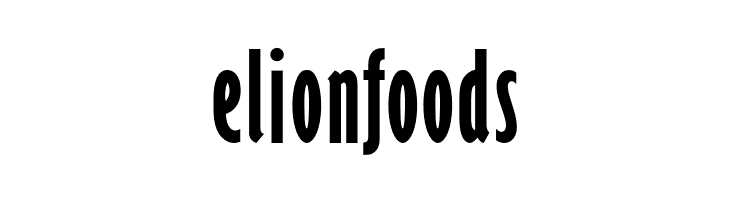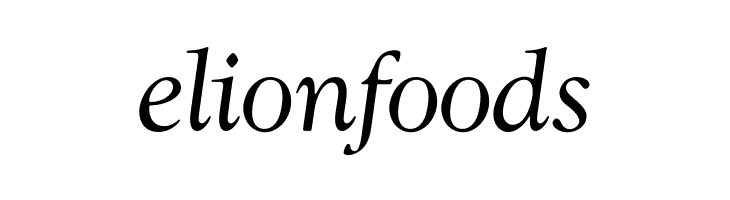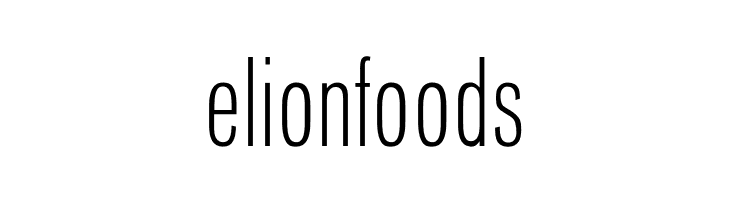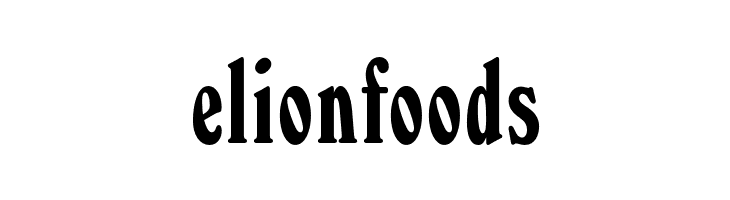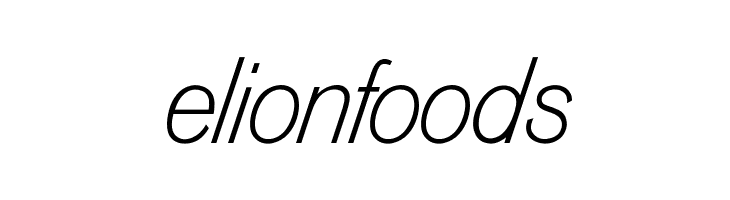
A modern, light sans-serif font with clean lines and a minimalist style.
Bold, condensed typeface with a modern and impactful design.
A sleek, modern, and condensed font with consistent stroke weight.
A sleek, light, and italic font with a modern and elegant design.
A classic serif typeface with high contrast and elegant design.
A bold, classic serif font with strong, pronounced strokes and excellent readability.
A classic serif font with elegant and refined characteristics.
A classic semi-bold serif typeface with medium contrast and elegant serifs.
A playful, bold font with a shadow effect and hand-drawn aesthetic.
A bold, playful font with a 3D shadow effect, perfect for engaging and fun designs.
A bold and impactful typeface with strong, uniform strokes.
An elegant serif font with high contrast and refined letterforms.
A classic serif font with a modern twist, featuring sharp serifs and balanced proportions.
A classic serif font with elegant curves and strong presence.
A classic serif font with elegant, sharp serifs and medium contrast.
A bold, classic serif font with pronounced serifs and strong presence.
A classic serif font with bold, elegant characters and strong serifs.
A bold, elongated font with a vintage flair and high contrast strokes.
A classic serif font with rounded edges and moderate contrast, offering elegance and readability.
A bold, rounded serif font with a modern and approachable style.
A bold, rounded font with a modern and approachable style.
A bold, angular font with a modern and edgy geometric design.
A bold, narrow font with a modern and impactful style.
An elegant script font with fluid, cursive strokes and high contrast.